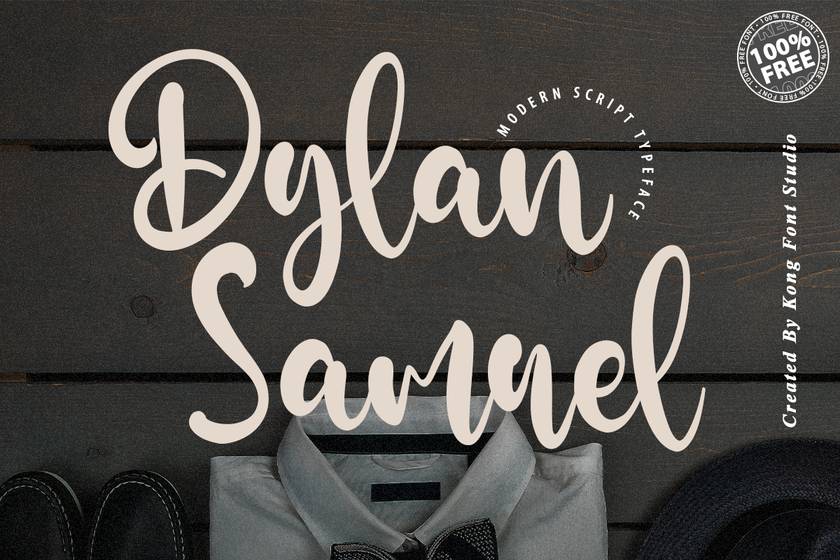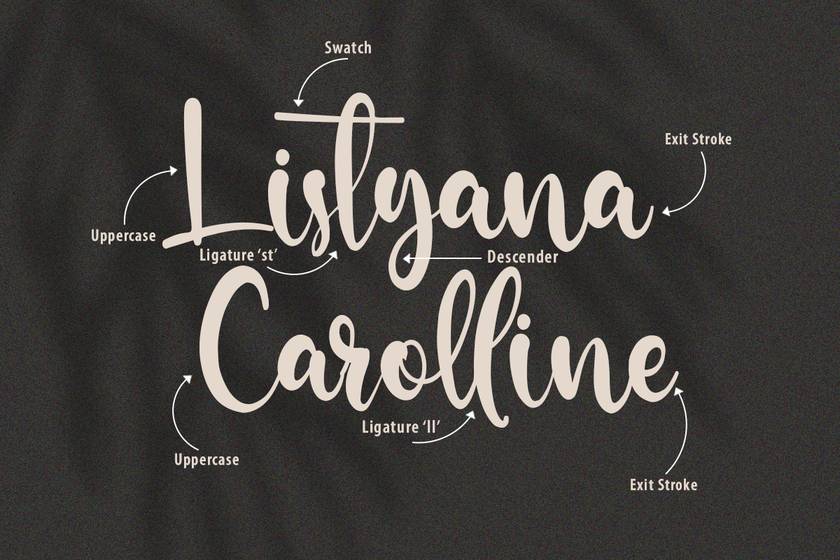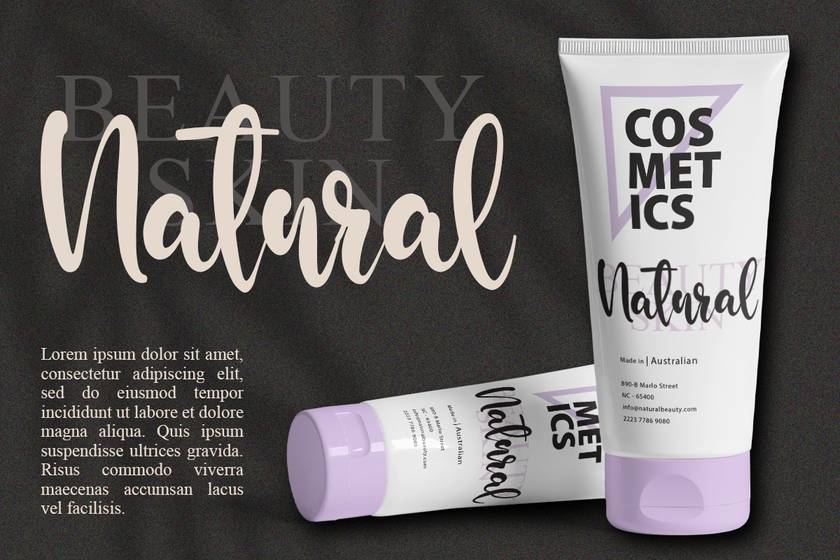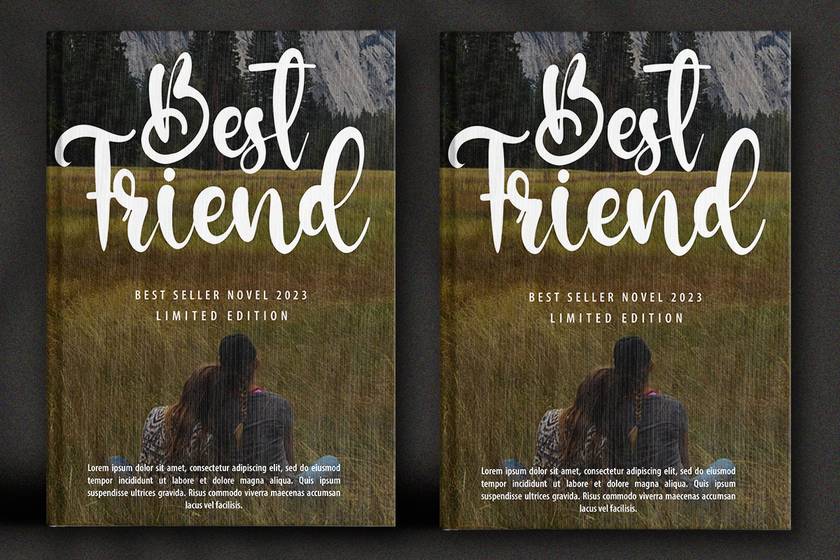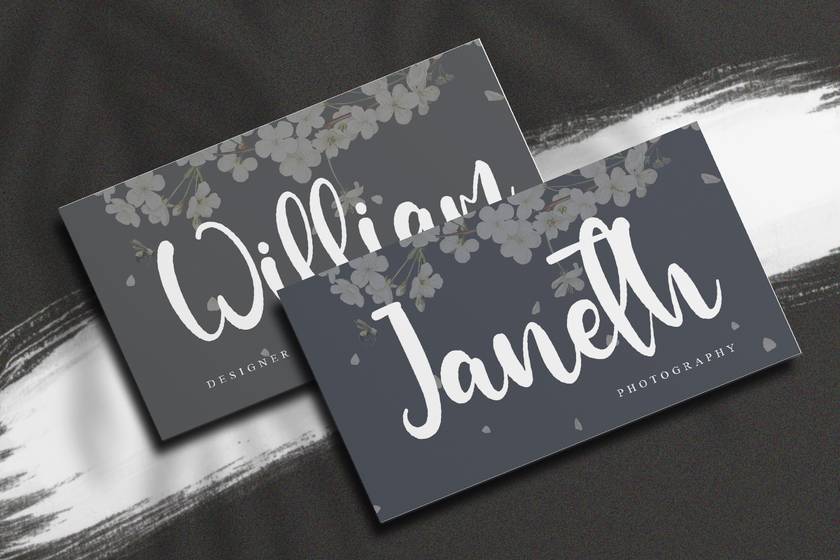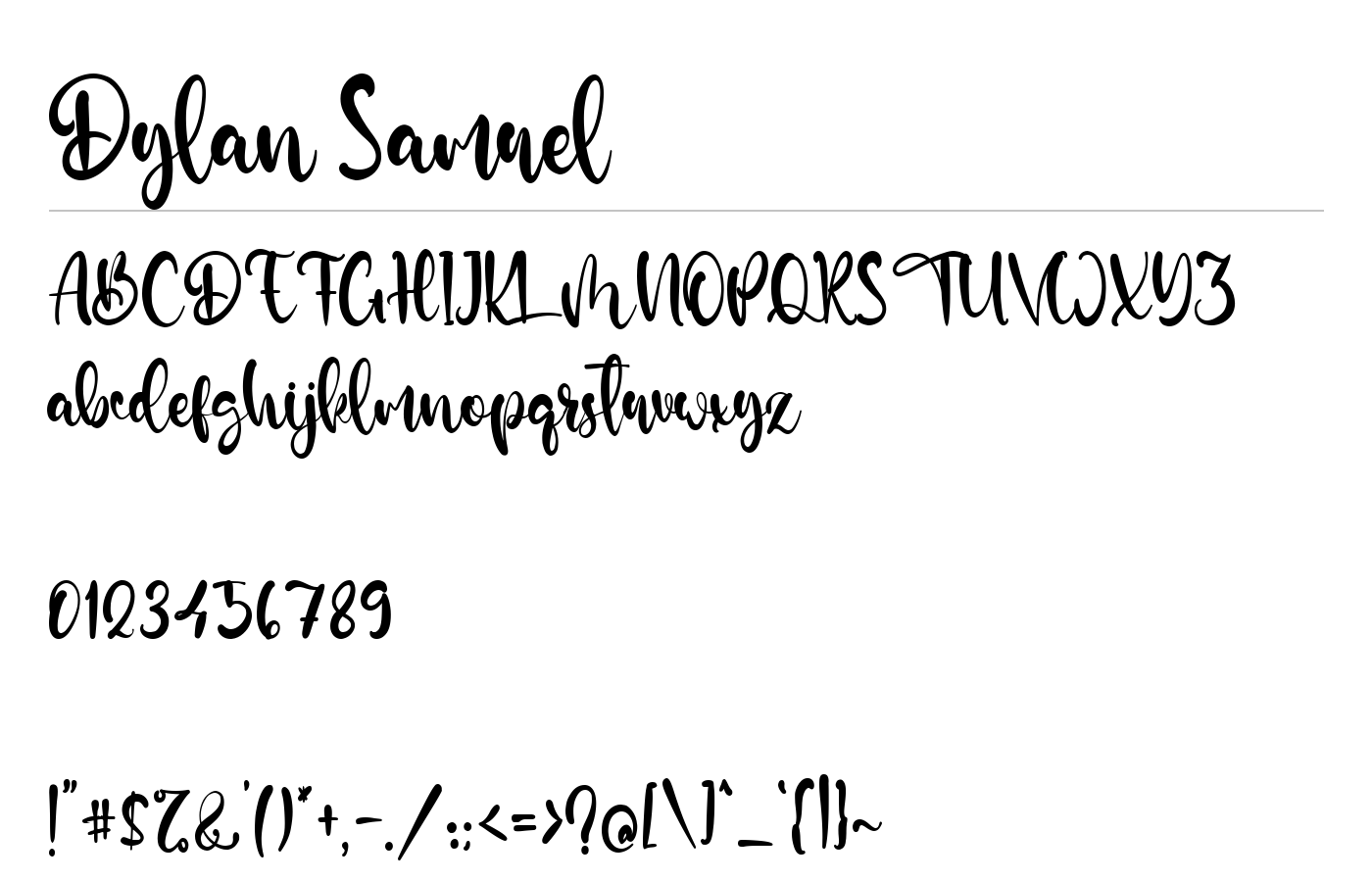
Dylan Samuel is a playful and elegant script font with a casual handwritten feel, featuring smooth, flowing strokes and medium contrast. Its tall, slender letterforms and distinctive curves create a charming and approachable personality, making it perfect for creative projects, branding, invitations, and headlines where a personal, friendly touch is desired. This font works especially well in contexts that benefit from a modern yet warm and stylish aesthetic.
Dylan Samuel Font
About Dylan Samuel Font
| Font family | Dylan Samuel Font |